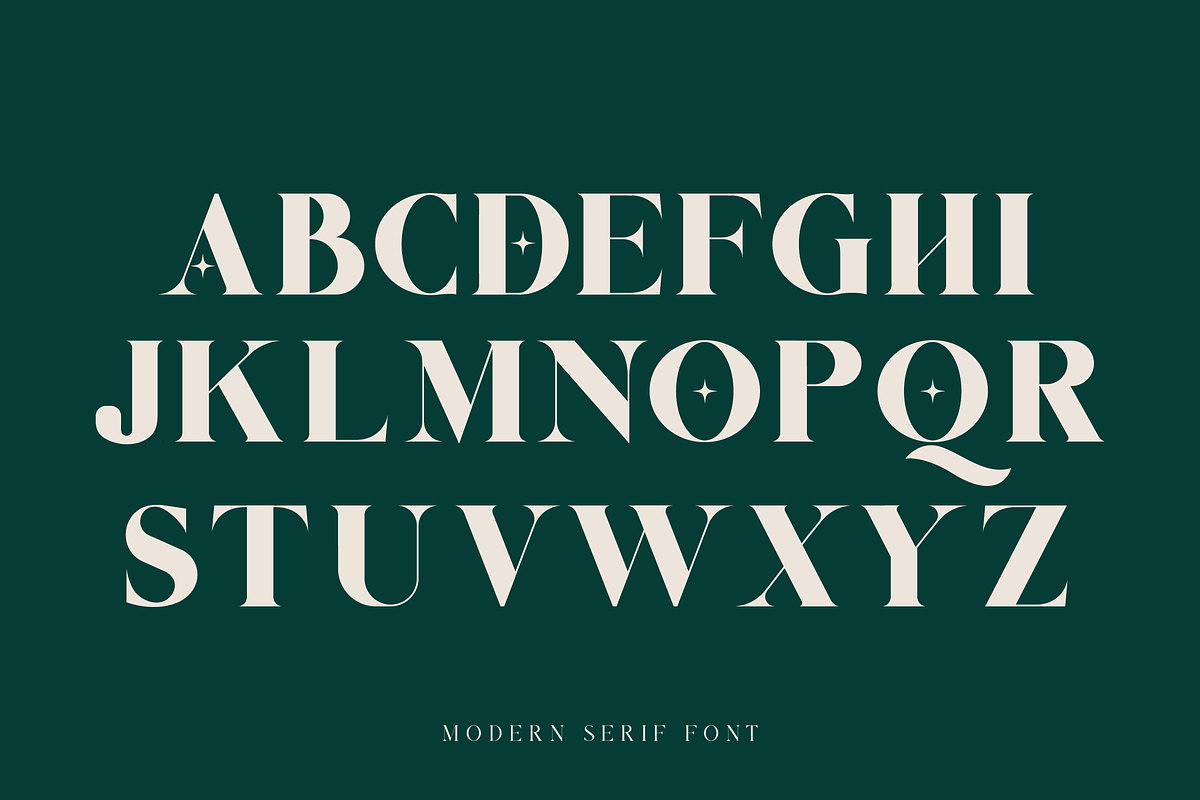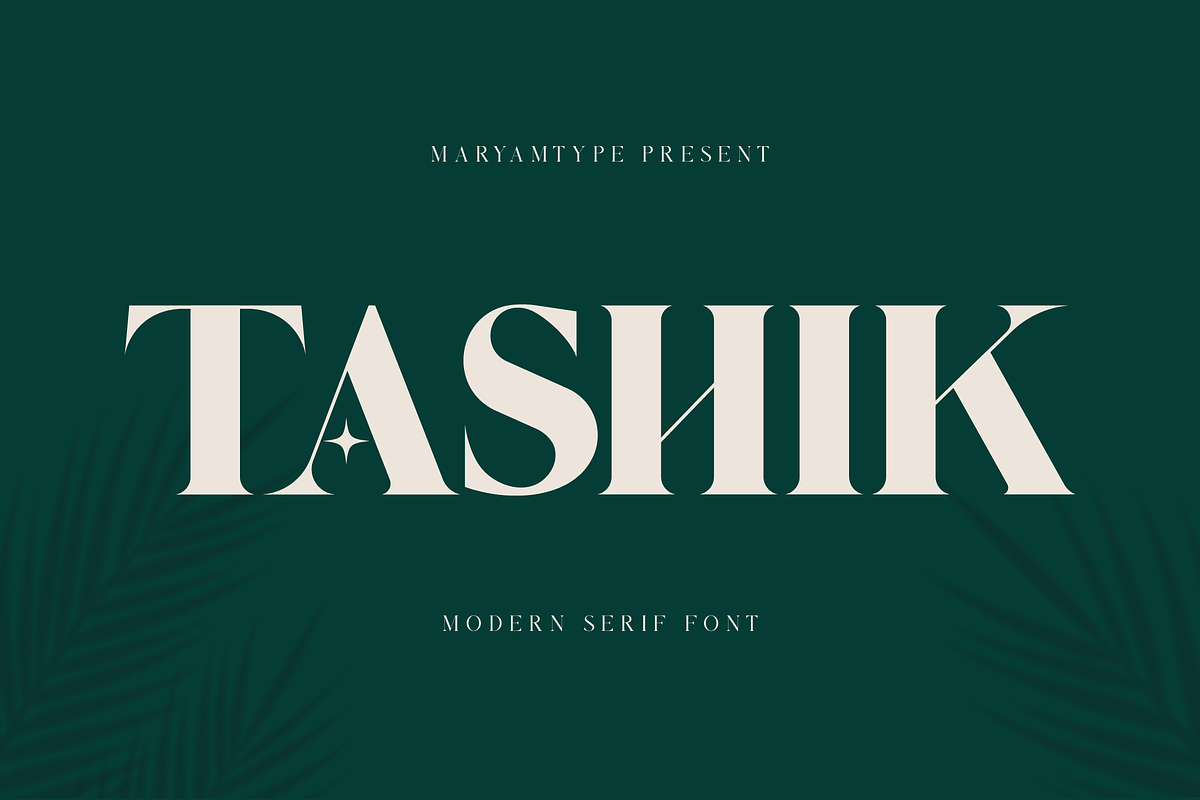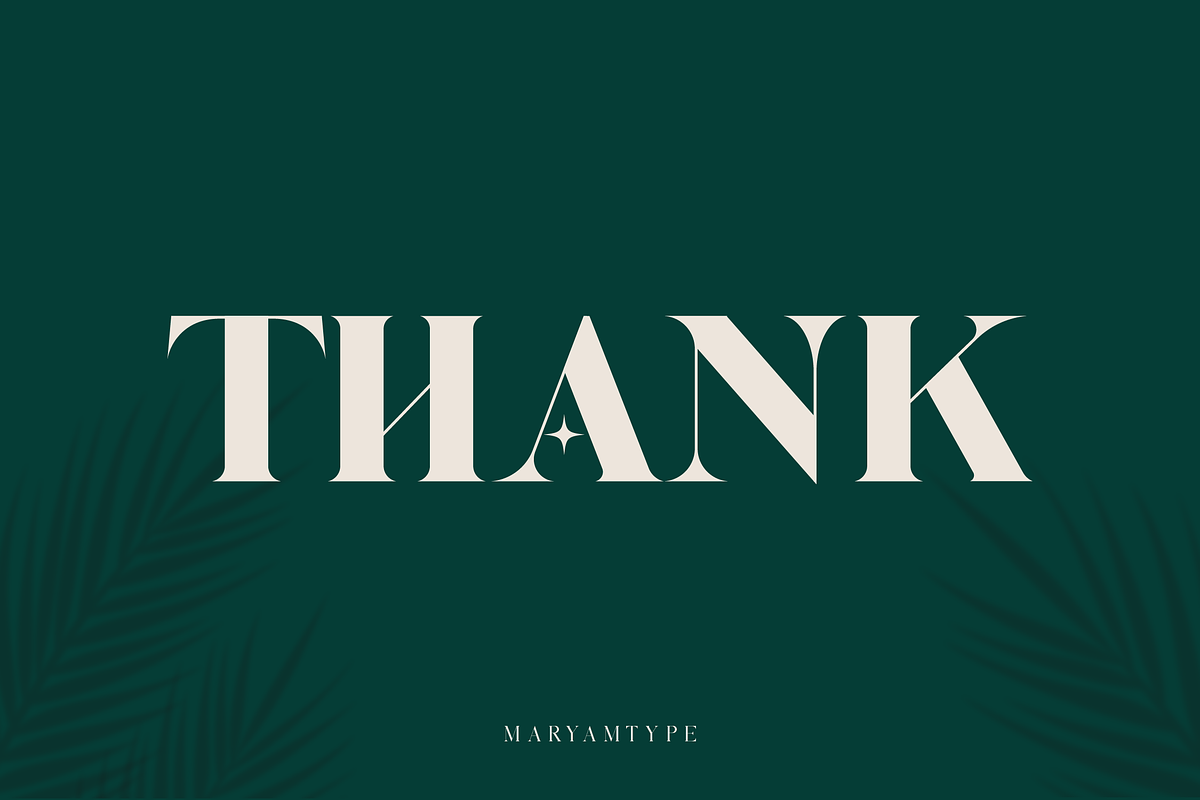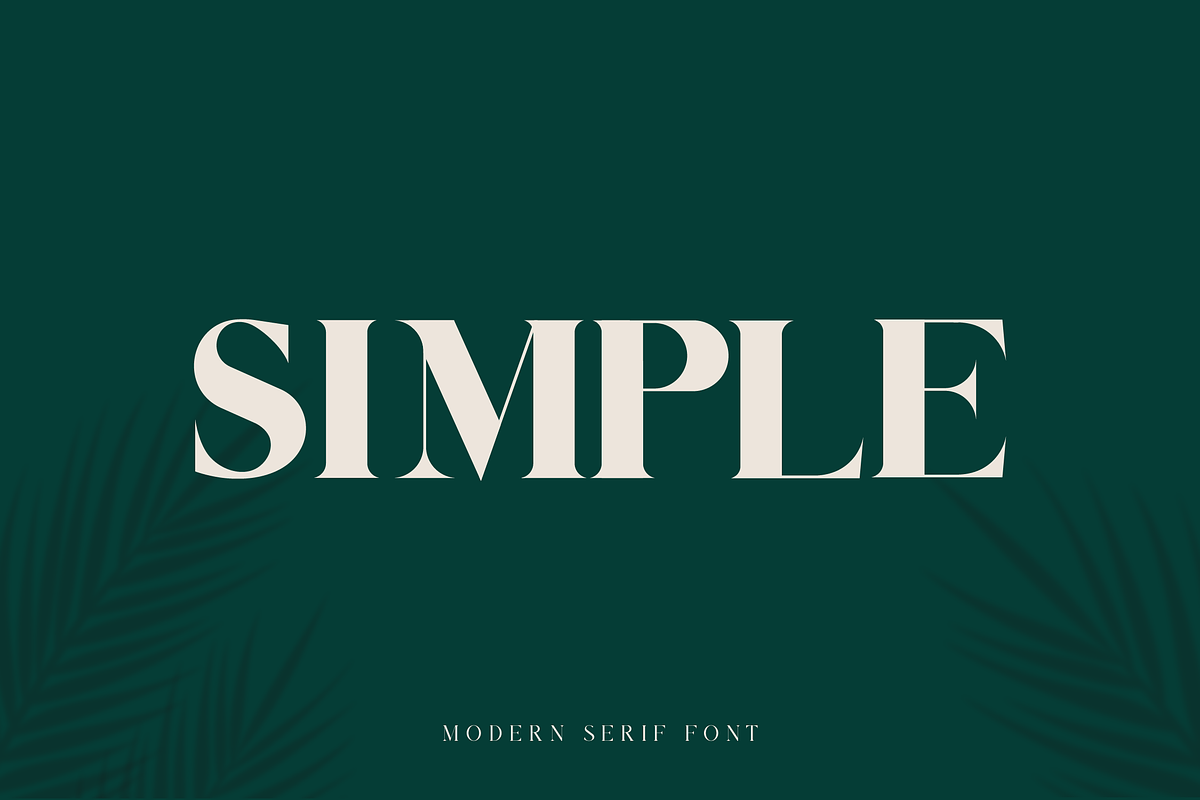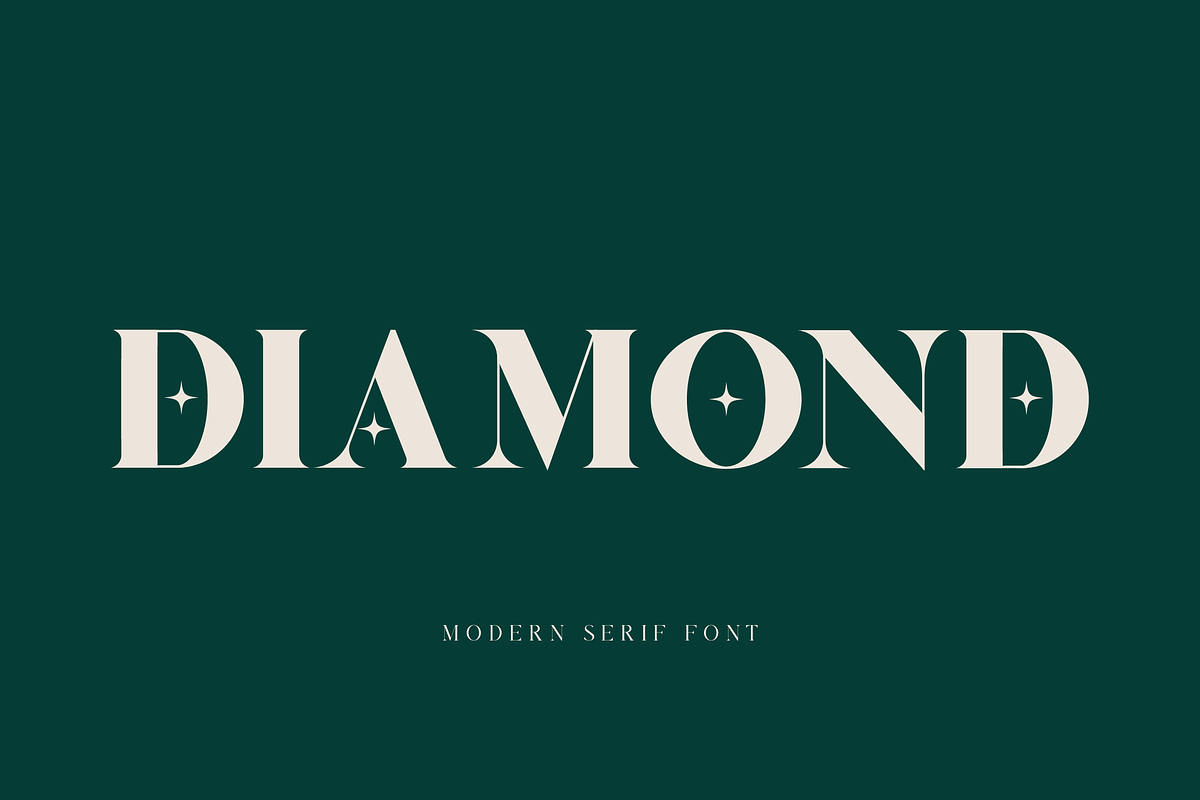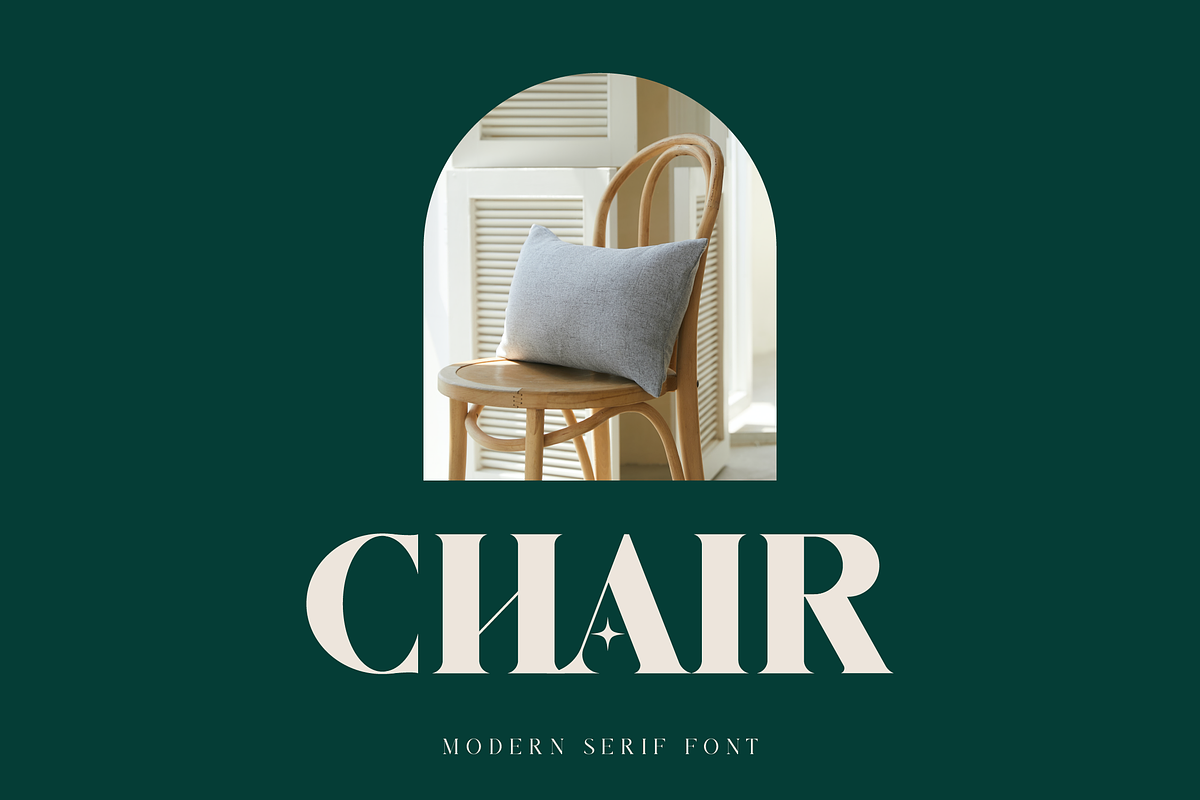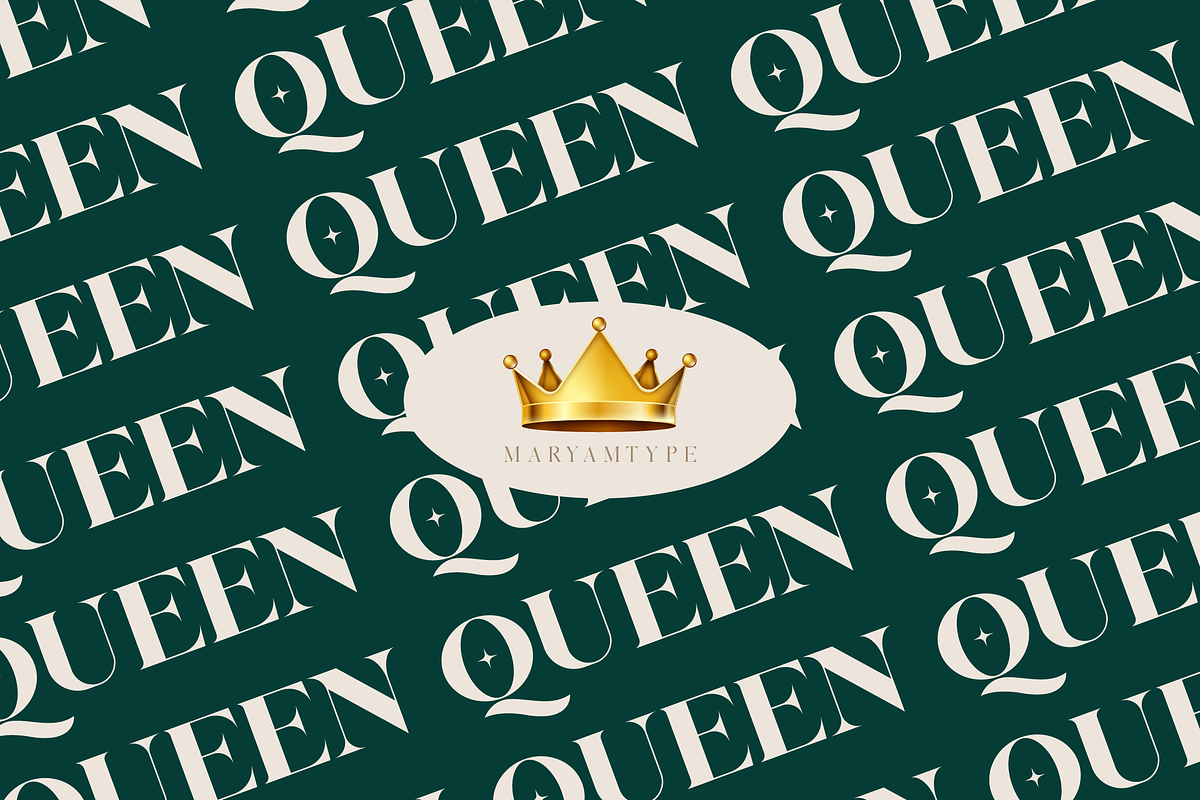
Tashik Modern Serif
Proudly present TASHIK Typeface , created by Maryamtype, A serif modern and classic typeface that has own unique style & modern look. This typeface is perfect for an elegant & luxury logo, book or movie title design, fashion brand, magazine, clothes, lettering, quotes, and so much more.